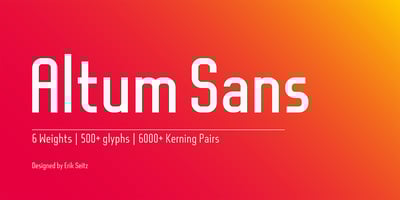
Altum Sans Font Family was designed by Erik Seitz and published by Erik Seitz. Altum Sans contains 6 styles and family package options. Altum Sans is a new clean and contemporary typeface. The geometric and condensed letterforms are designed for use in larger texts and display applications. With over 500 glyphs Altum Sans supports many languages as well as two different figure styles, interpolation breakpoints, subscript, superscript, contextual alternatives, ordinal indicators, fractions,…